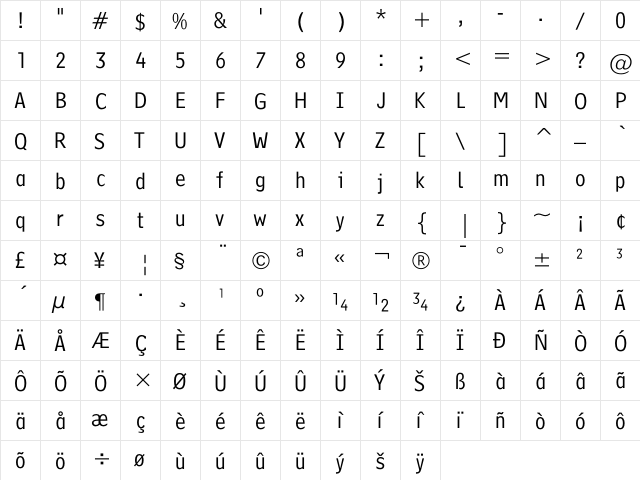
AFInterface One
Design Context for AFInterface Typeface
AFInterface offers clean, dependable letterforms without strong stylistic allegiance, making it a practical choice for designers who need flexibility.
Pro Tip: Pair AFInterface with a font of contrasting weight or personality to build a more expressive typographic hierarchy.